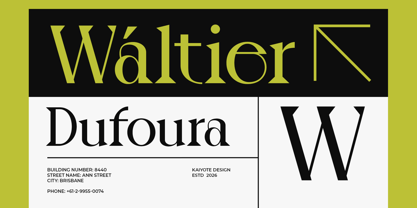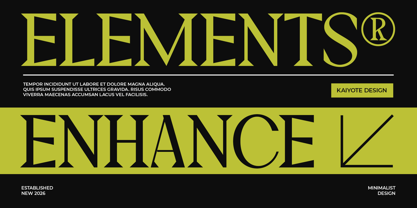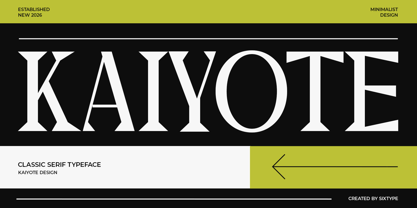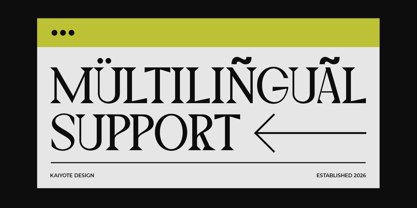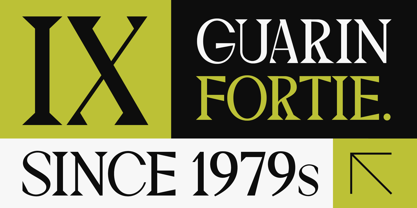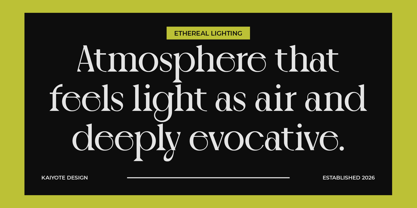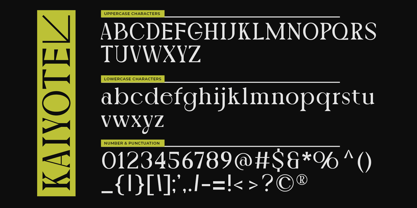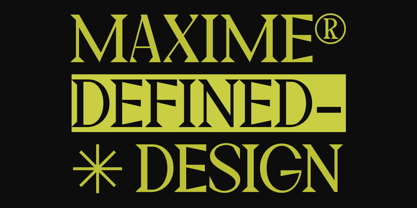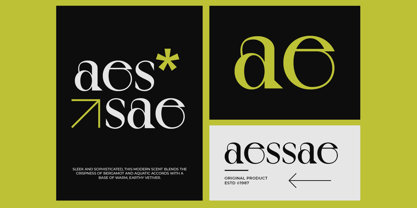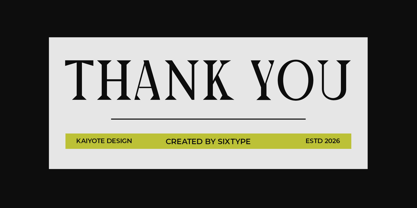
Kaiyote
Kaiyote is a striking modern serif typeface that seamlessly blends classical structure with a sharp, minimalist attitude. Characterized by high contrast strokes and angular, sculpted serifs, it introduces a bold and confident voice while maintaining elegance and clarity. The distinctive cuts and geometric terminals provide a contemporary edge, making it ideal for large-scale headlines and refined branding applications. With its clean rhythm and stylish tension between tradition and modernity, Kaiyote is perfectly suited for editorial layouts, luxury branding, fashion identities, and sophisticated visual systems that demand presence and precision. This versatile font family offers a range of weights, enhancing its usability across various design contexts, from print to digital media, ensuring it meets the needs of modern creatives.